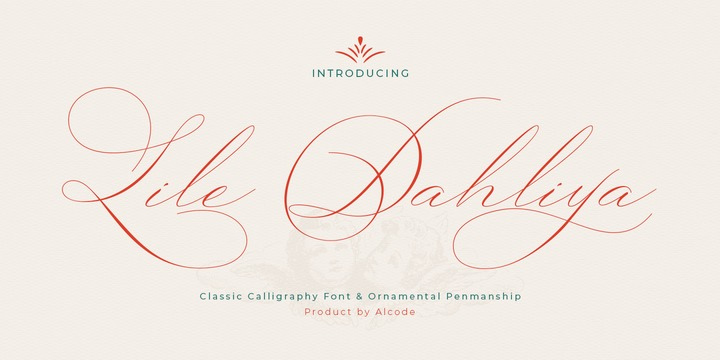
Lile Dahliya Font
Lile Dahliya Font is perfect for floral shop branding, botanical garden signage, natural skincare packaging, organic beauty products, garden center materials, flower arrangement cards, nature-inspired wedding invitations, eco-friendly brand logos, spring festival posters, and artisanal soap labels.
What makes Lile Dahliya Font exciting is its delicate botanical inspiration that captures the graceful beauty of blooming flowers and natural growth patterns. This enchanting typeface features organic letterforms with flowing curves and petal-like details that instantly evoke feelings of freshness, natural beauty, and garden elegance.
Lile Dahliya Font family includes regular and bold weights with decorative flourishes and botanical ornaments, providing designers with beautiful tools for creating nature-inspired brand identities and organic design systems.
Lile Dahliya Font embodies natural elegance with its masterfully crafted letterforms that mirror the delicate beauty of garden flowers and organic growth. This versatile typeface successfully combines botanical authenticity with professional readability, making it perfect for brands seeking to communicate natural beauty, environmental consciousness, and organic quality.
The comprehensive character collection includes uppercase and lowercase letters, numerals, botanical punctuation, and decorative floral elements that enhance the font's versatility in nature-inspired applications. Lile Dahliya Font supports multiple languages with stylistic alternates for personalized organic communications.
Lile Dahliya Font performs beautifully in both eco-friendly print materials and natural brand digital platforms, maintaining its botanical character whether featured in seed catalogs, displayed on garden center websites, or used in organic product packaging. The font's natural details ensure consistent environmental appeal.
Botanical industry professionals and eco-conscious brand creators appreciate how Lile Dahliya Font instantly establishes natural connection and organic atmosphere in creative projects. Its distinctive floral personality helps brands create authentic experiences that celebrate nature and environmental stewardship.
Whether you're designing botanical branding, creating organic product packaging, or developing nature-themed communications, Lile Dahliya Font provides the natural authenticity and organic elegance essential for connecting with environmentally conscious audiences.